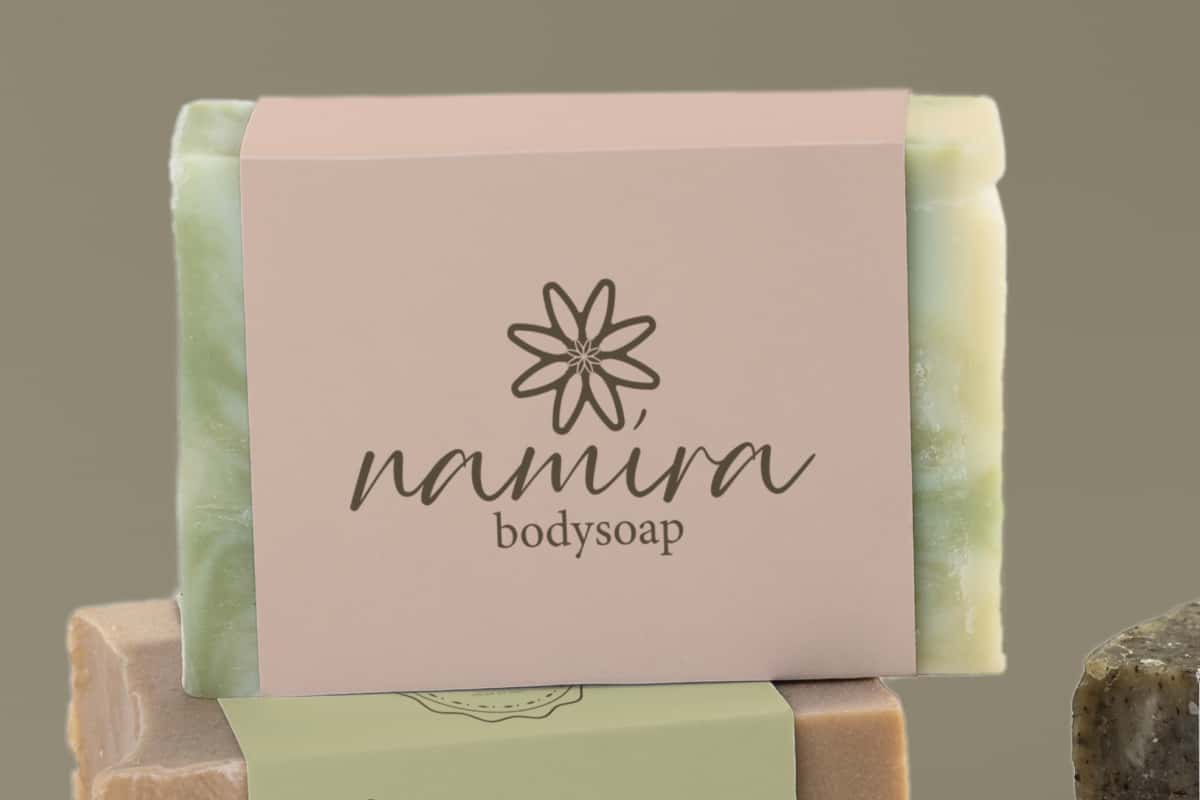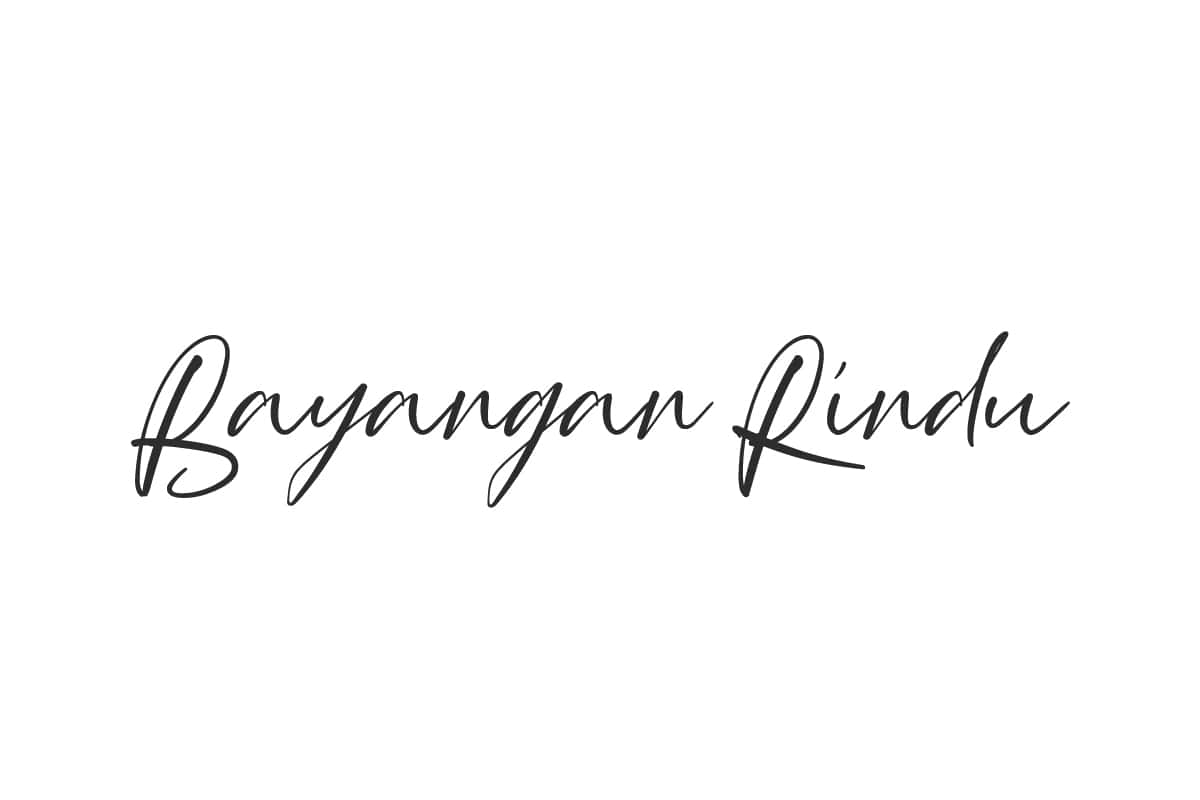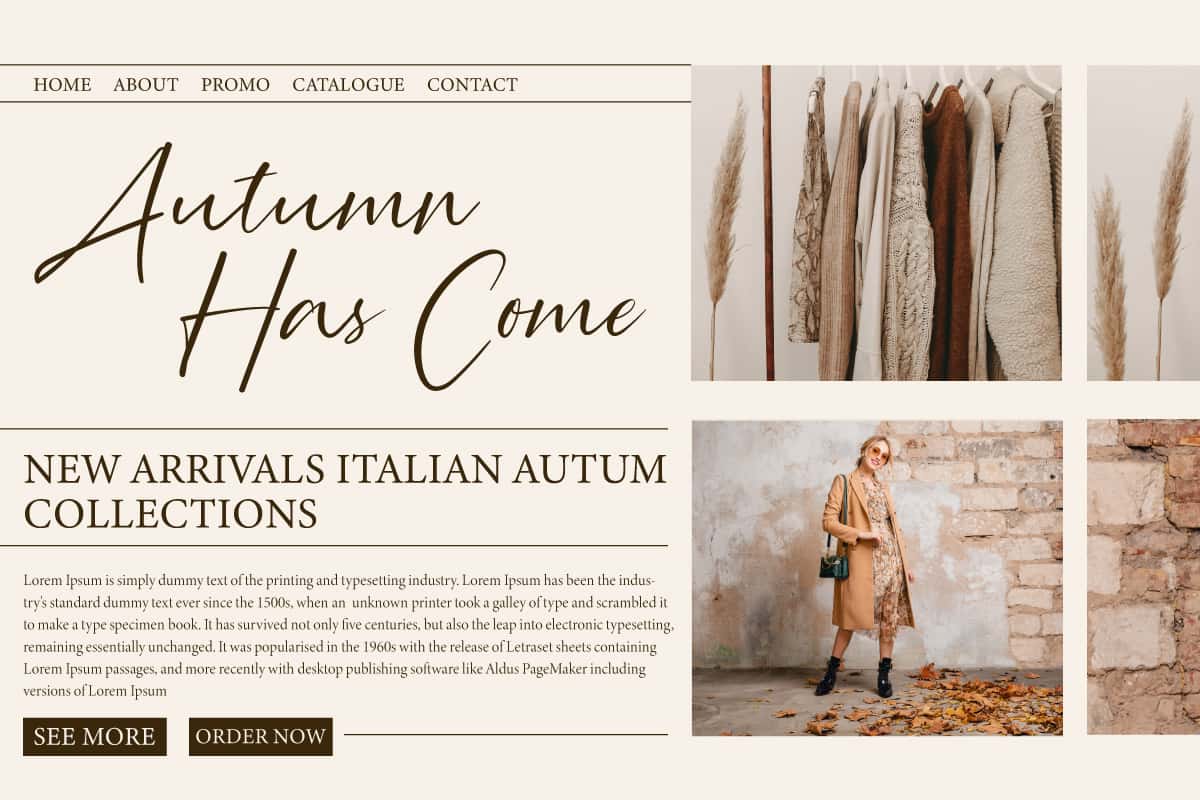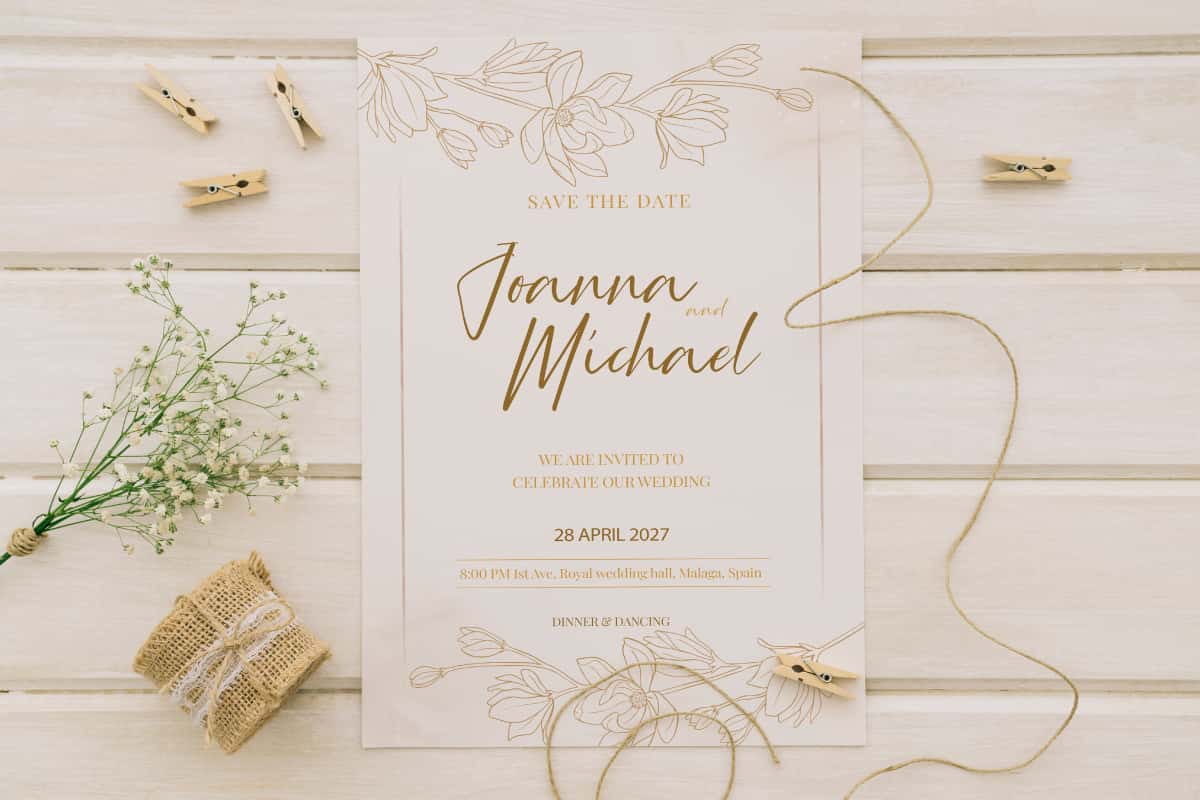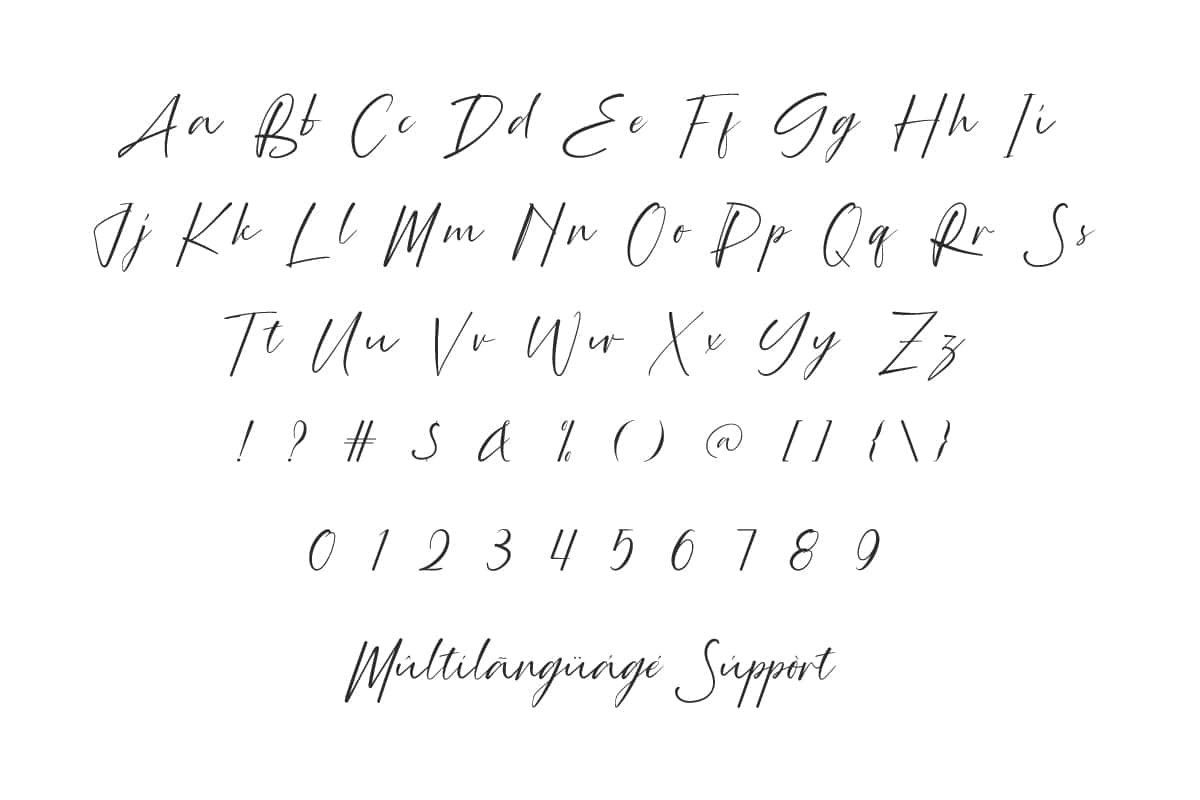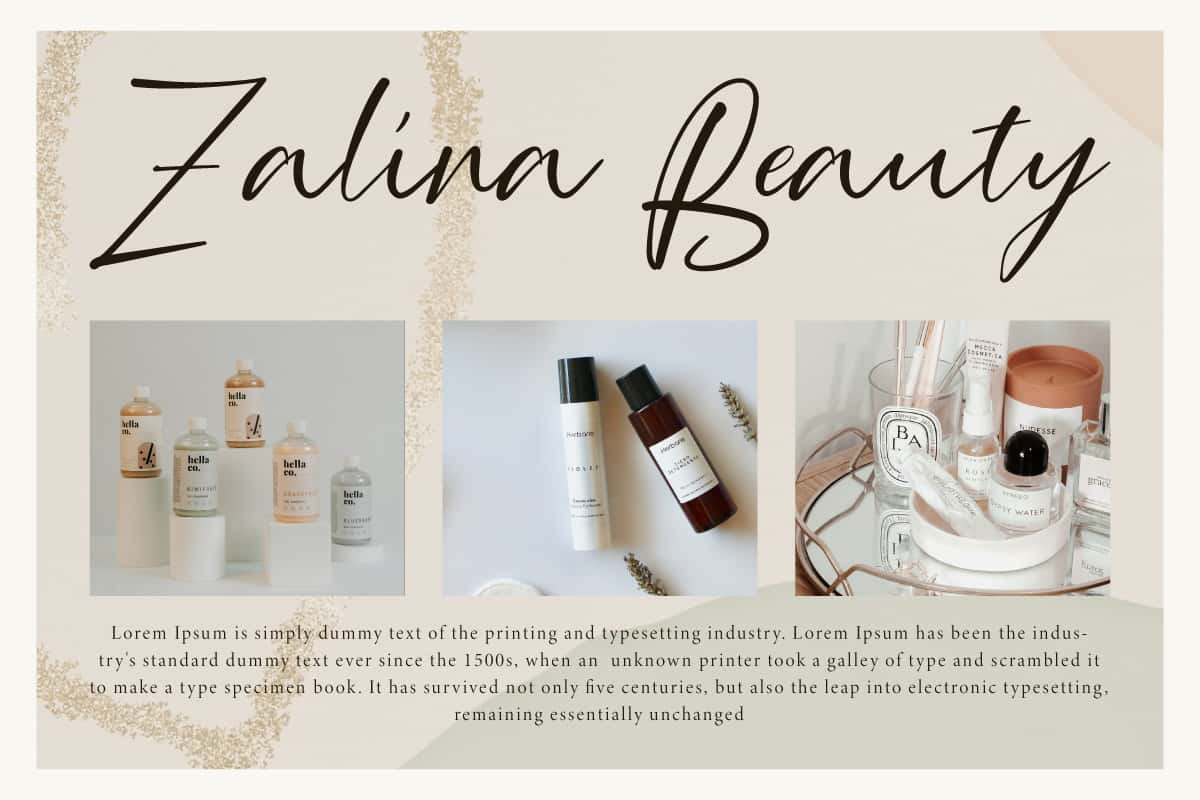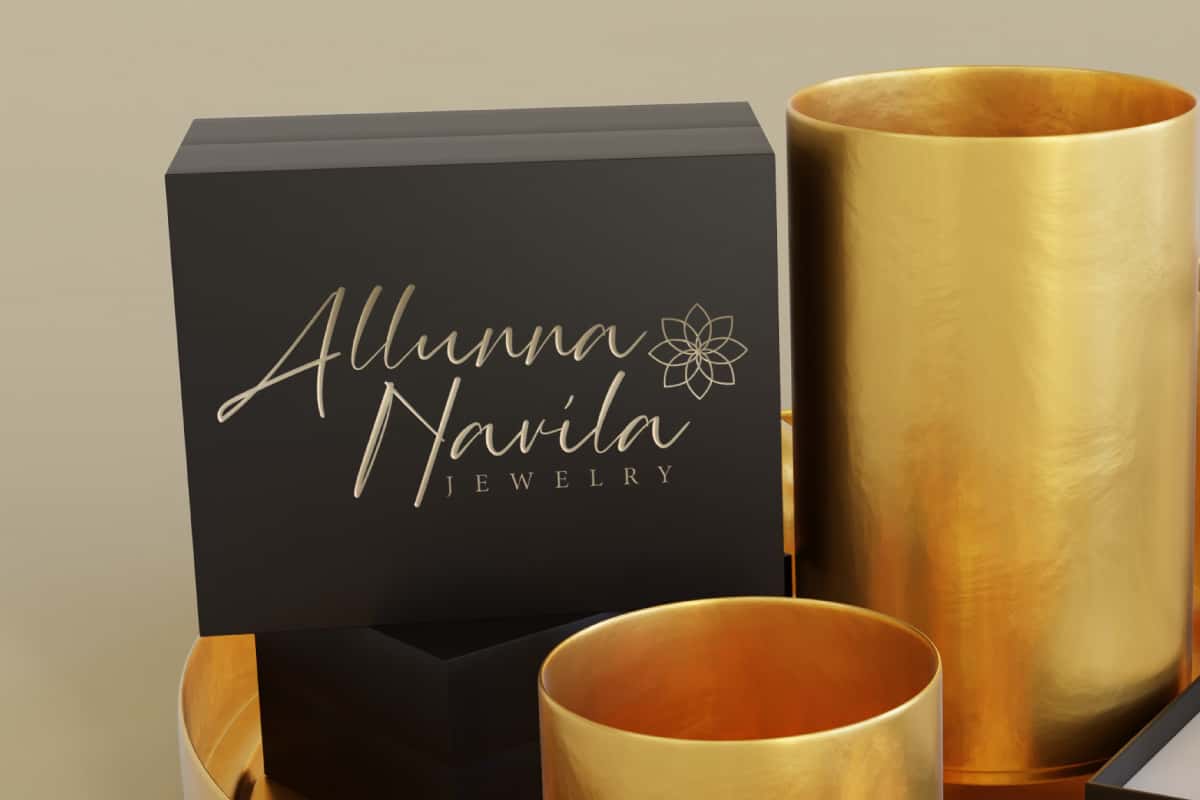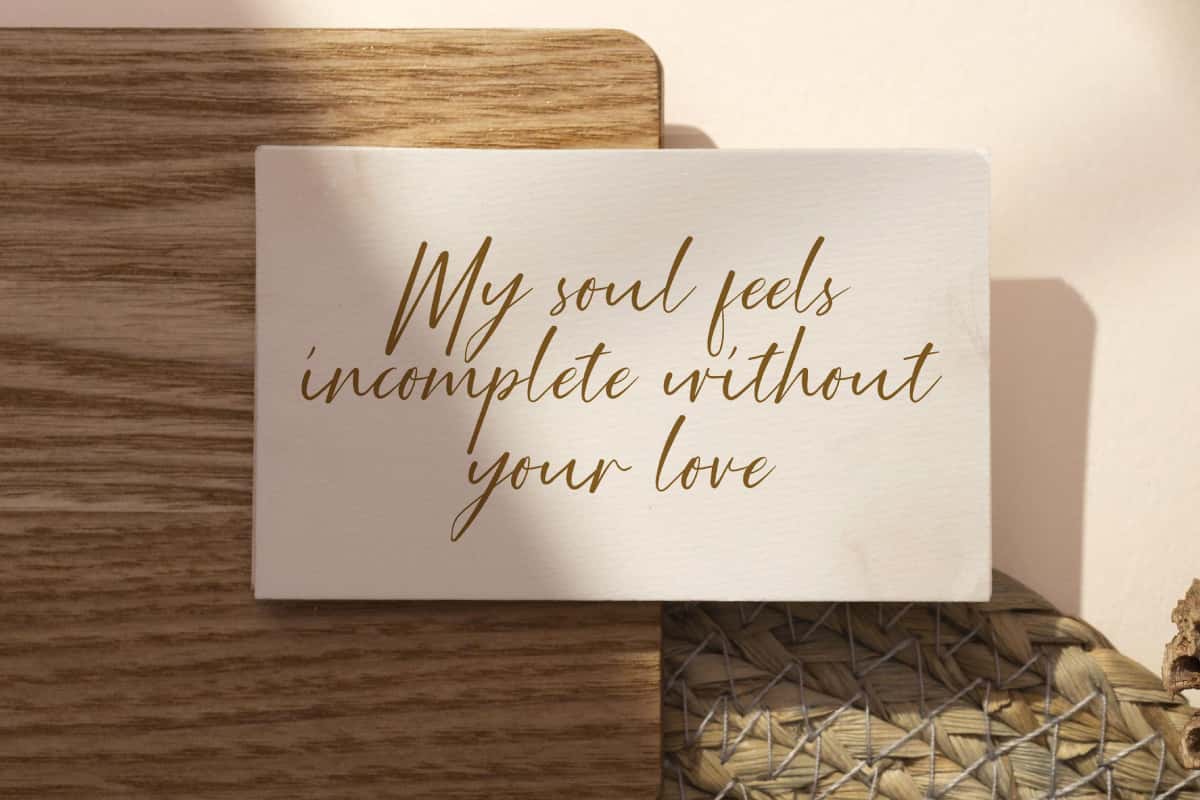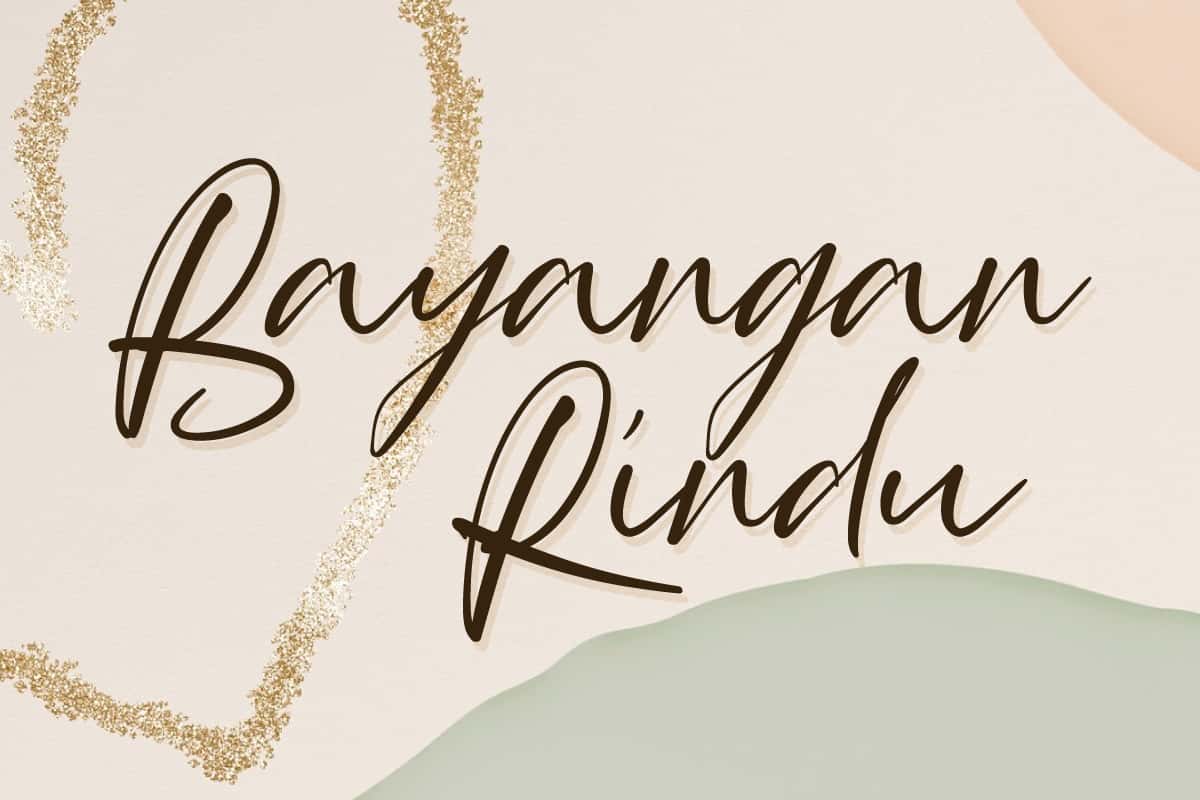
Bayangan Rindu Font is a gorgeous handwritten with personal appeal that comes with beautiful modern chic signature. Perfect for advertising, branding, etc.
Bayangan Rindu Font is a luxurious handwritten signature font that exudes elegance and modern sophistication, this font radiates a stylish yet timeless charm. The subtle curves and delicate letterforms make it ideal for blogs, brand logo, card design, cover, headers, invitation, jewelry, label, logo, product packaging, quotes, sticker, template, title, website, etc.
Bayangan Rindu Font includes a complete set of Basic Uppercase and Lowercase Characters, Numbers, Punctuation Marks and Symbols. With its fluid, gracefully arranged strokes and well-crafted balance. Its modern yet elegant appeal ensures versatility while retaining its uniquely graceful personality. Ideal for advertising, apparel, beauty clinic, cosmetic, fashion, graphic design, handicraft, jewelry, publishing, skincare, wedding, etc.